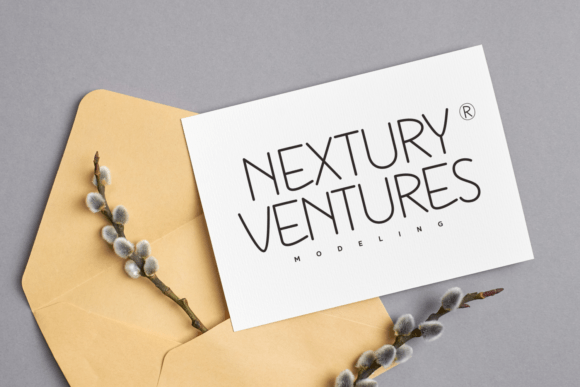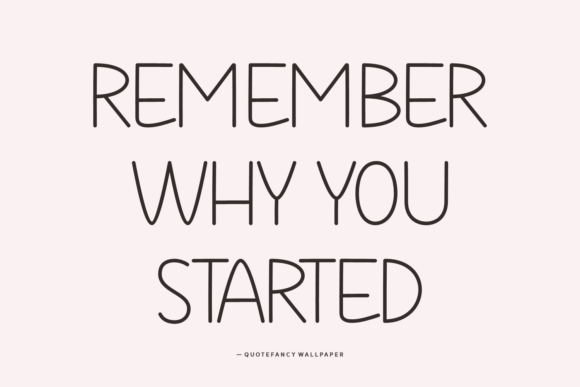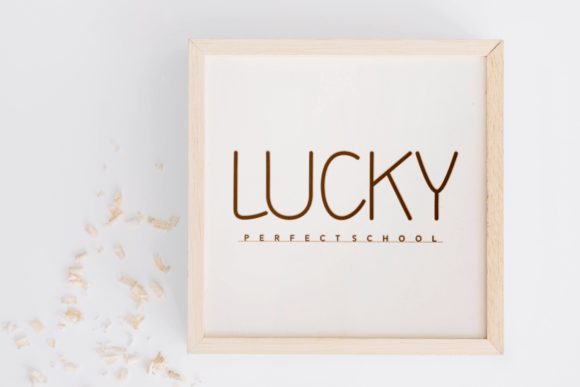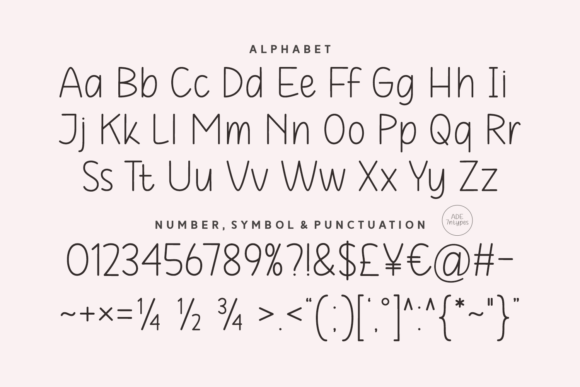
Introduction to Perfect School Font
Introducing Perfect School, a versatile sans serif font that merges playful charm with clean simplicity, perfect for educators, artists, and students alike.
This font, imbued with the nonchalance of a doodled notebook marquee and the precision of a digital planner, accomplishes a range of tones, from whimsical to professional An embodiment of trendy versatility, it matches perfectly with Canva or Procreate and goes great in a scrapbook or journal.
Key Features of Perfect School Font